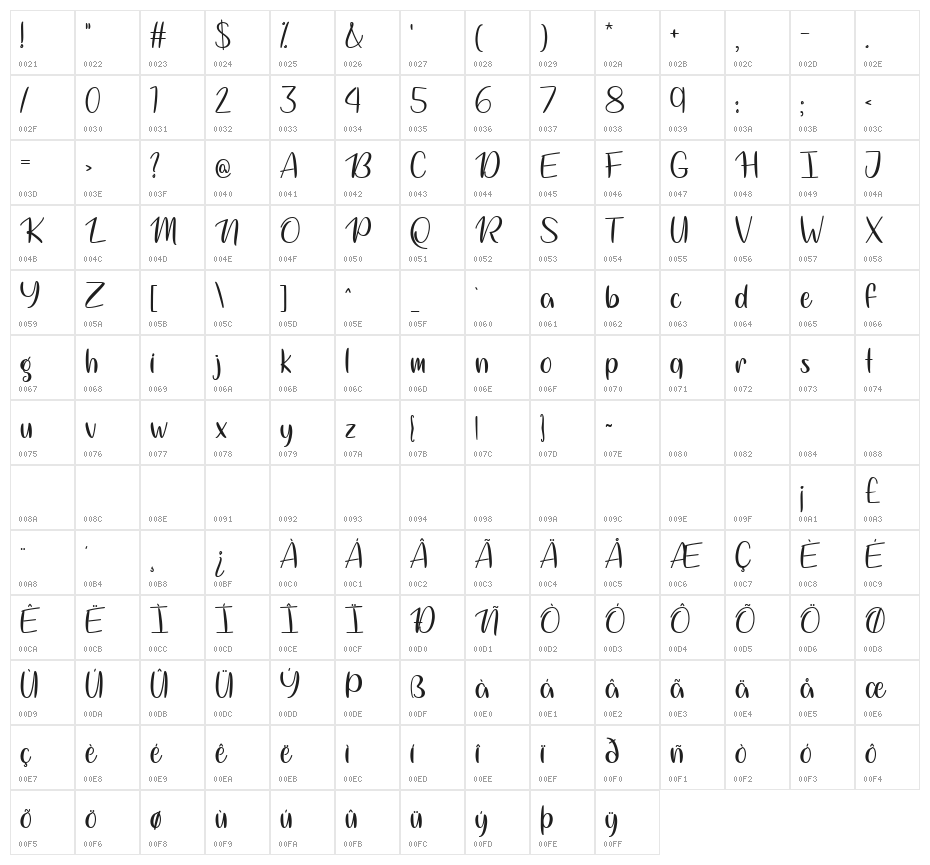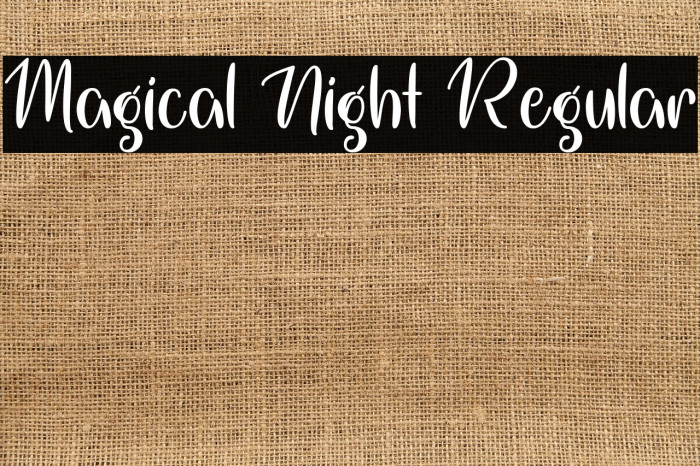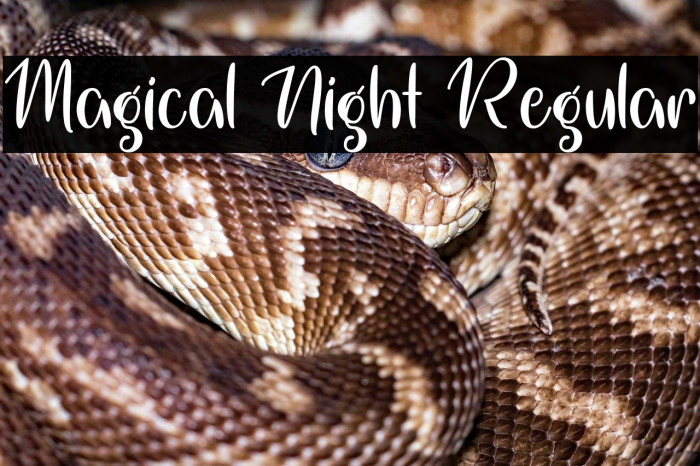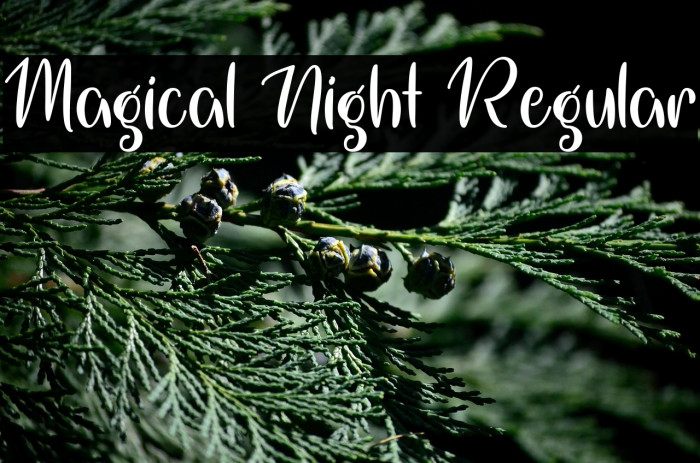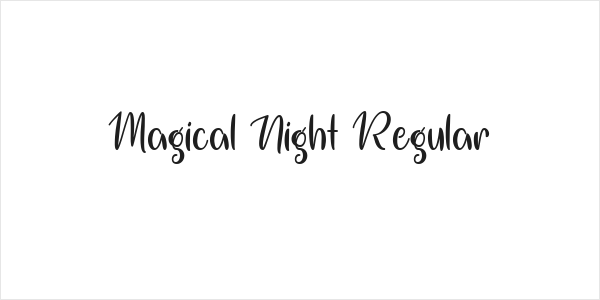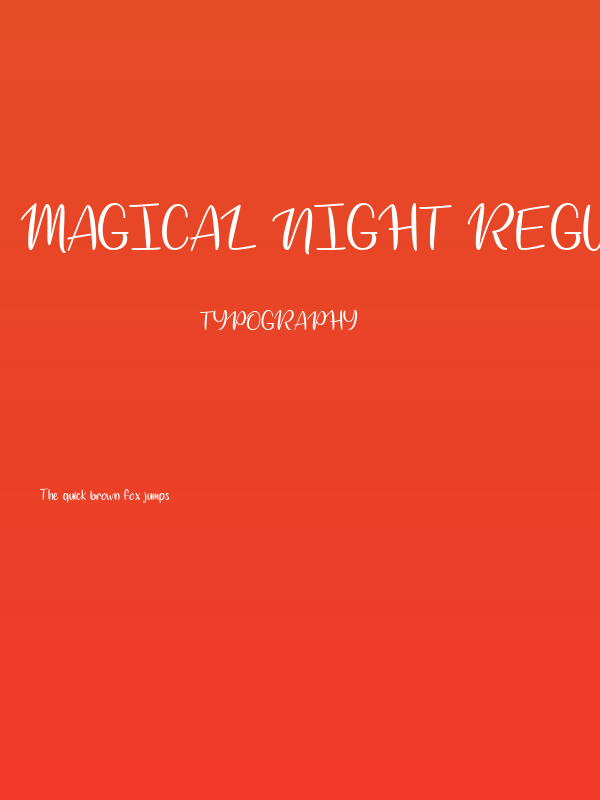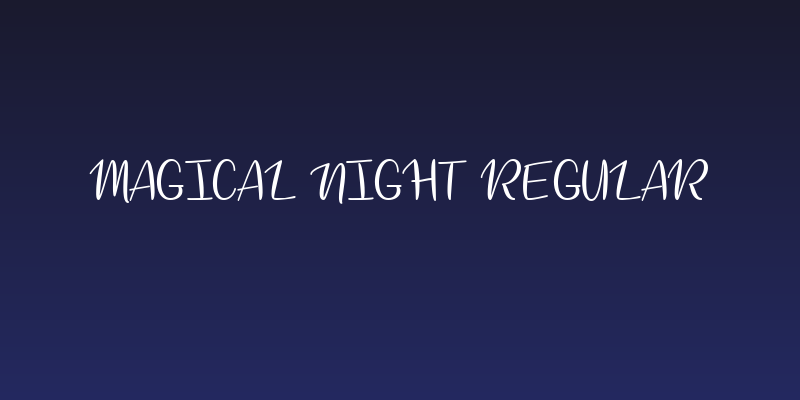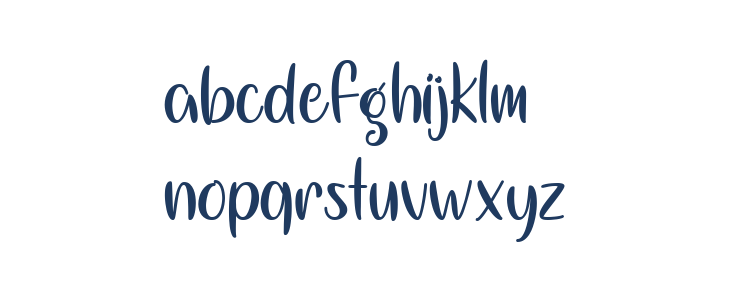
Magical Night Regular Font
Magical Night Regular Description
This font features a whimsical and playful design, characterized by its flowing, handwritten style. The letters have a smooth, cursive appearance with a slight slant, giving it a dynamic and lively feel. The uppercase letters are tall and elegant, while the lowercase letters maintain a consistent, rounded form. The numerals are equally expressive, matching the overall aesthetic of the font. Special characters are creatively integrated, enhancing the font's versatility. The strokes are moderately thick, providing a balanced contrast that ensures readability while maintaining its decorative charm.